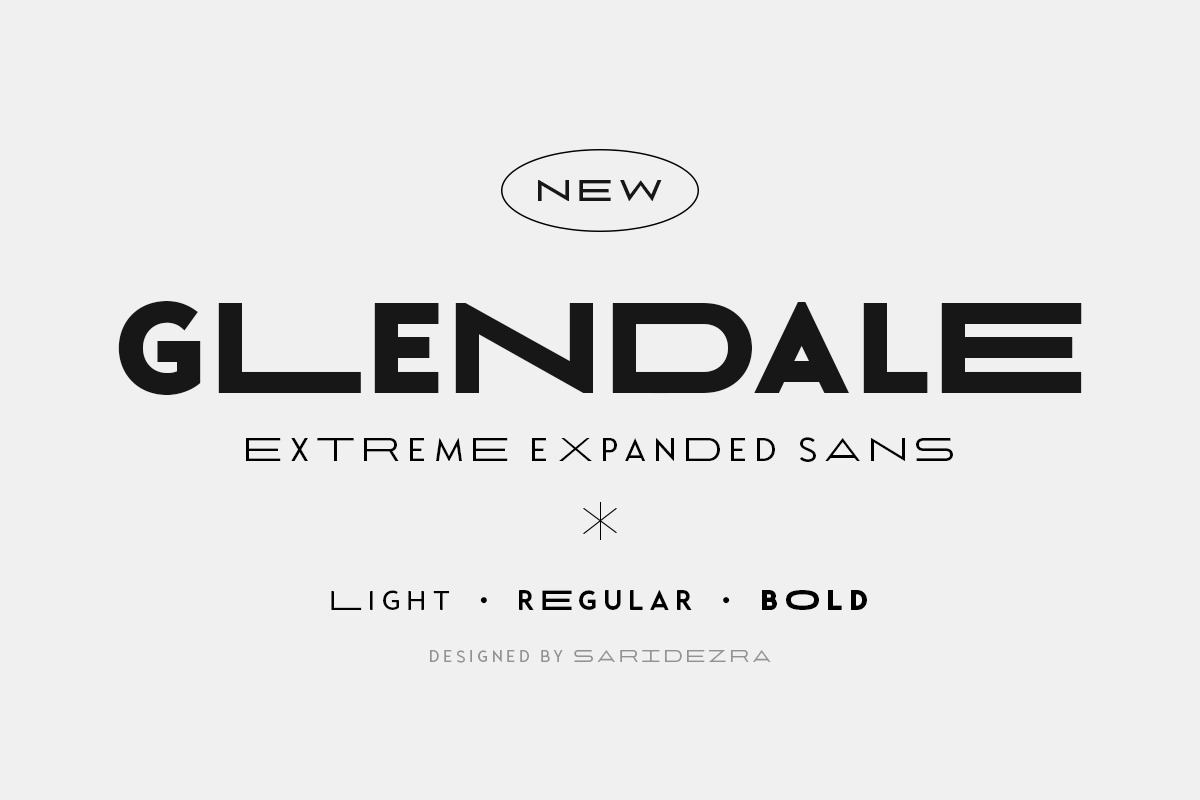
Please note, to use this font for commercial purposes, you must purchase the full version. Glendale is a bold and striking extreme expanded sans font that makes a statement in any design. With its wide, modern letterforms, this font is perfect for headlines, logos, posters, and any project that requires strong, attention-grabbing typography. Whether you're designing for a contemporary brand, a high-energy campaign, or a creative event, Glendale adds a powerful, modern touch to your work. Test it out and enjoy free download access for personal use. Experience the bold and expansive style of Glendale - Extreme Expanded Sans Font Free Download before purchasing the commercial license. Make your designs stand out with the bold, wide style of Glendale.